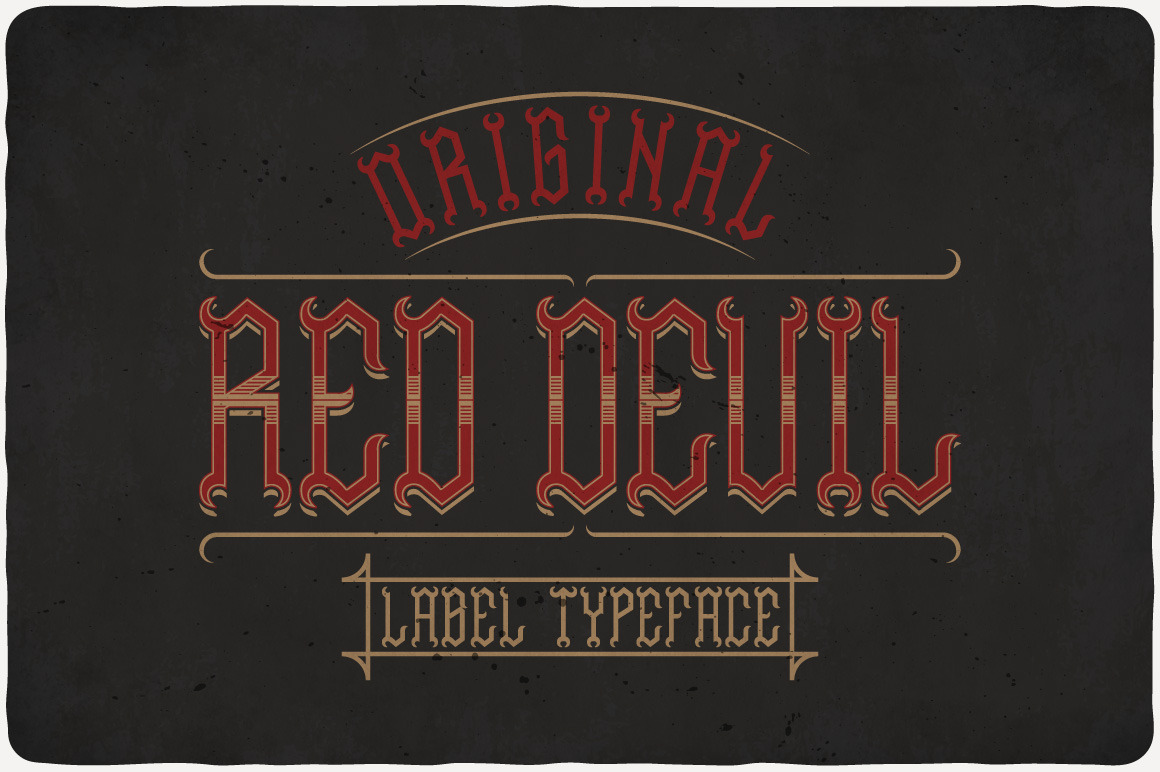
Red Devil Typeface
Introducing a original look label typeface named "Bones". It's made in scary and Halloween style :) Typeface is good viewed on any your design.